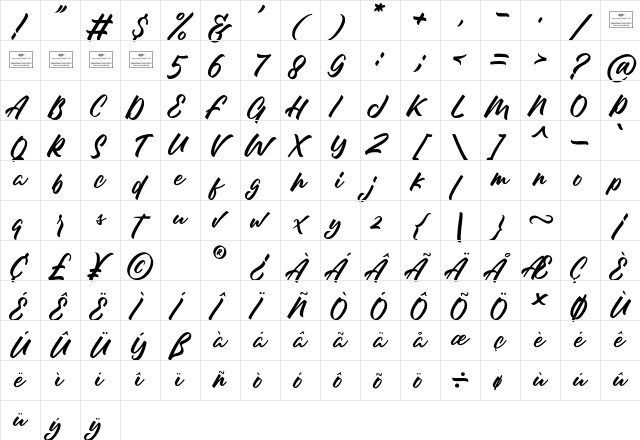
Complete Luther King Regular glyph index. Displaying only characters natively supported by Luther King Regular font.
Luther King is a composed and adaptable typeface that performs quietly and consistently across a wide range of design contexts.